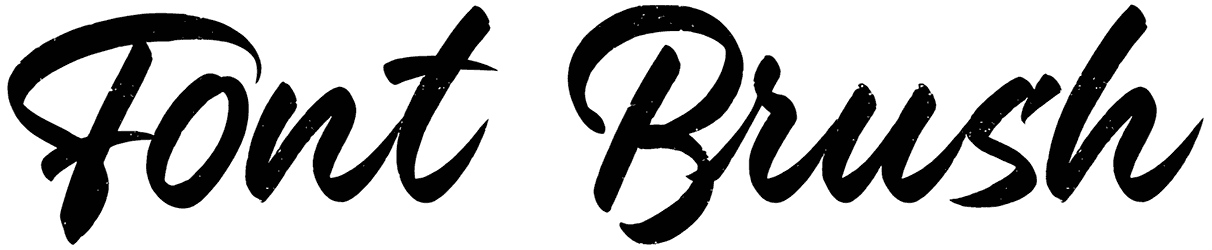
Font Brush Font
The elaborate design of Font Brush can help you take the aesthetics of your designs to a higher level and bring you closer to involved projects. This script font has original and natural lines that are expertly twisted and can present your content in the most beautiful format possible.
Smooth strokes and long lines in this brush font will meet your needs when designing greeting cards, wedding invitations, and fashion applications.